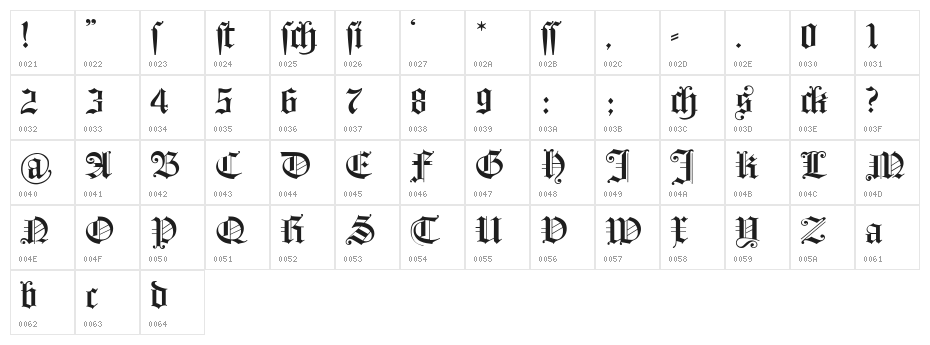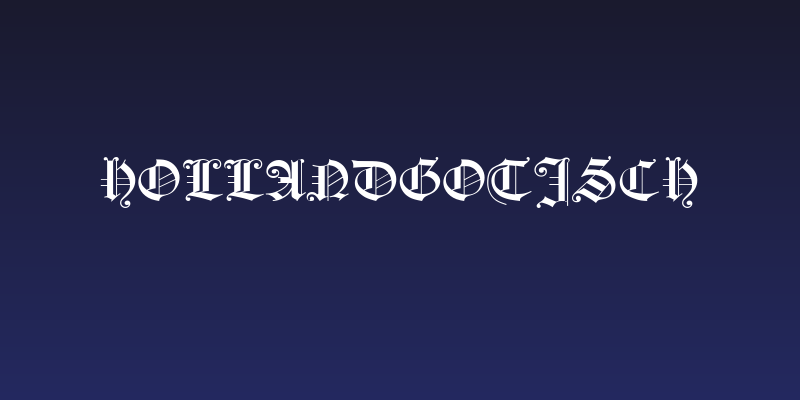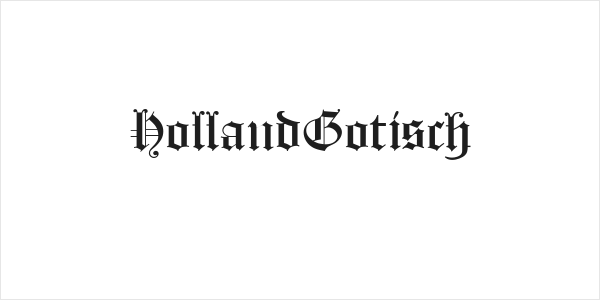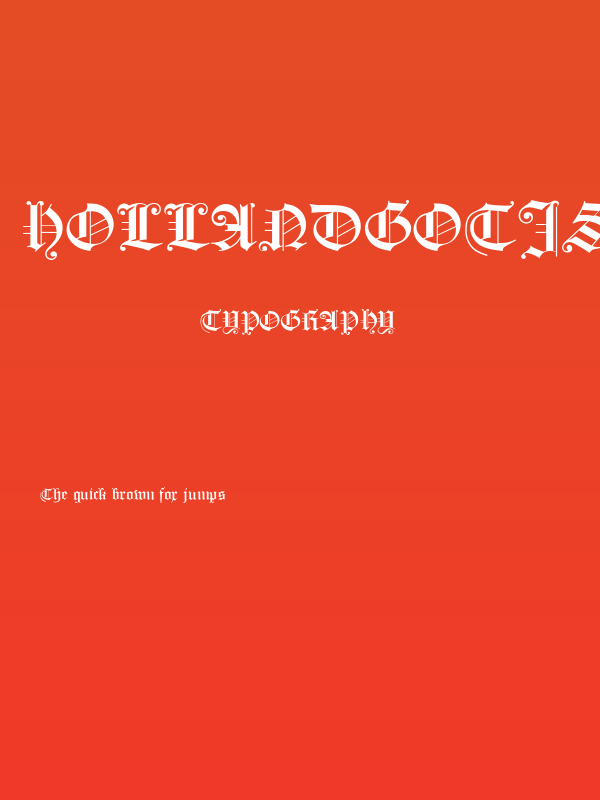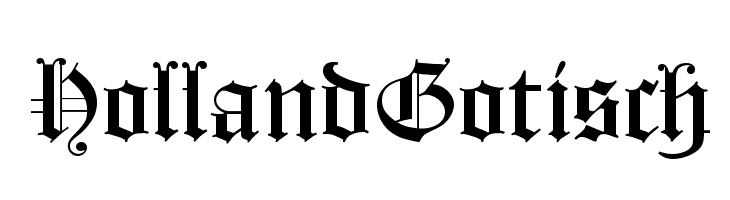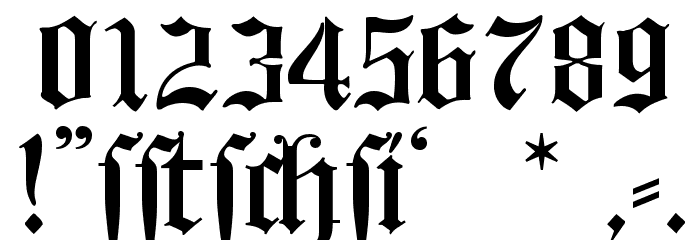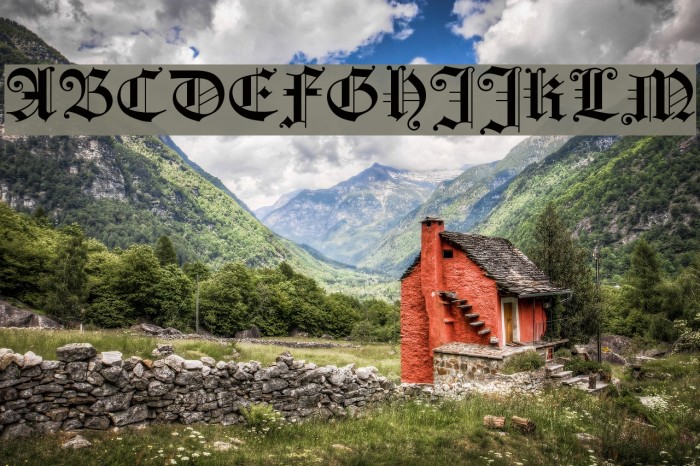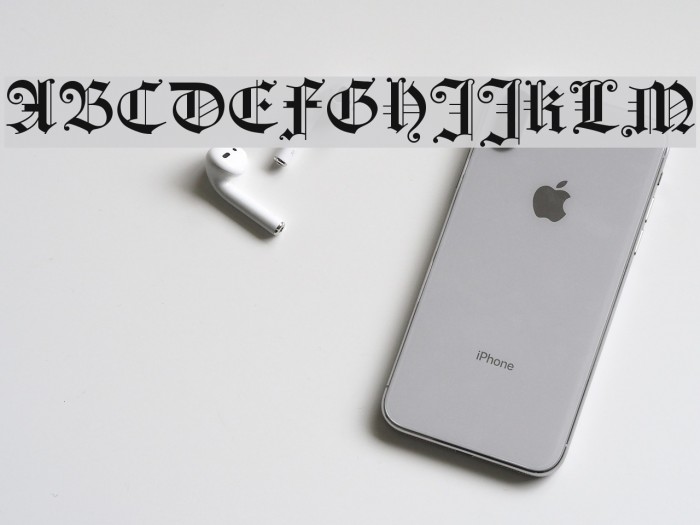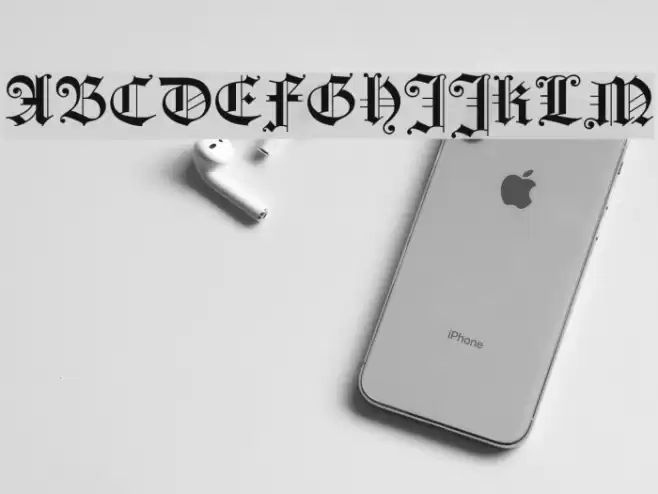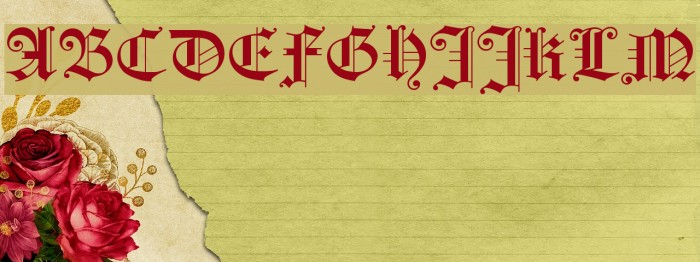
HollandGotisch Font
HollandGotisch Description
This font exudes a classic and historical charm, reminiscent of traditional Gothic script. Its intricate and ornate design features sharp, angular lines and elaborate flourishes, capturing the essence of medieval calligraphy. The uppercase letters are bold and commanding, while the lowercase letters maintain a consistent style with slightly more subtle detailing. Numbers and special characters are crafted with the same attention to detail, ensuring a cohesive appearance across all elements. The font's dramatic and decorative nature makes it ideal for projects that require a touch of elegance and antiquity.
| Overall Style | Vintage |
| Use Case | Logos, Headlines, Decorative text |
| Proposed Projects | Ideal for historical documents, wedding invitations, book covers, and branding that requires a vintage or medieval aesthetic. |